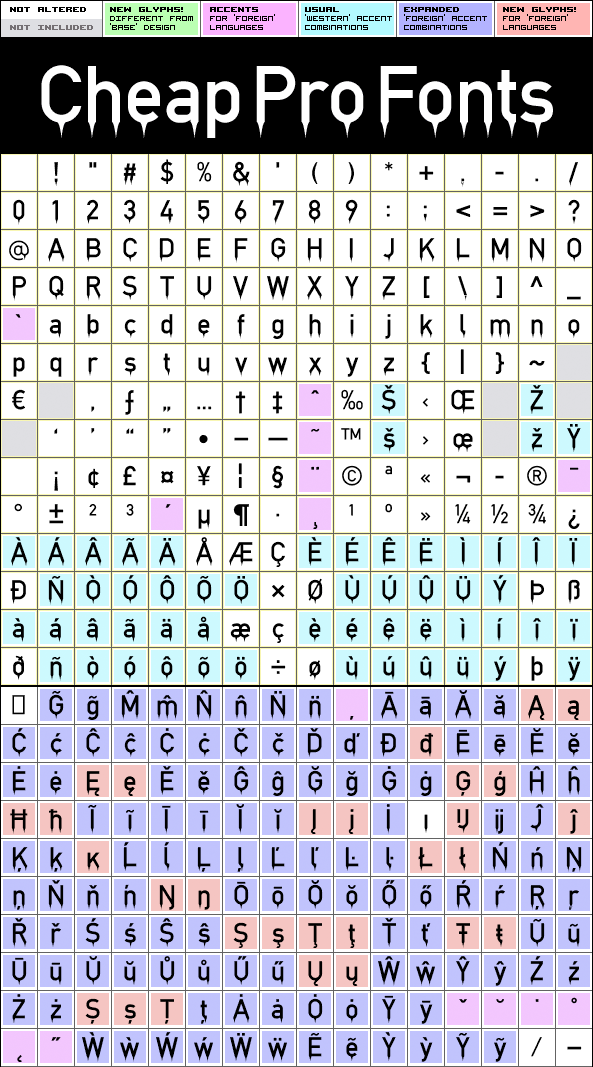
DINfun Pro Blade
DINfun Pro Blade by Roger S. Nelsson
Designer:
Roger S. Nelsson
Highlights:
379 glyphs!
632 class kernpairs
= 12027 kerning pairs
Description:
Take a long, sharp look at the added appendages of this variant of DIN 1451 Mittelschrift - they will surely help drive your Halloween message in. :)
DINfun Pro Blade is a professionally reworked font that contains an extended character set for setting text in 65 languages requiring more than the basic A-Z!